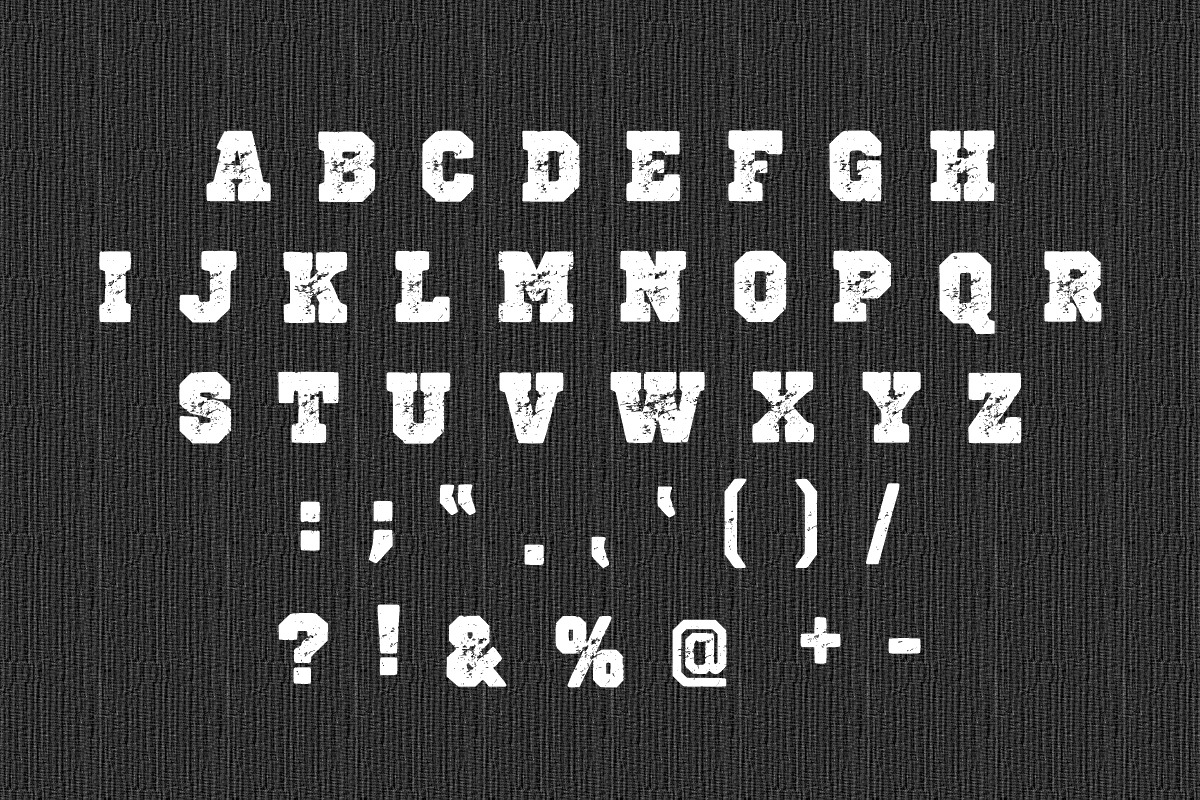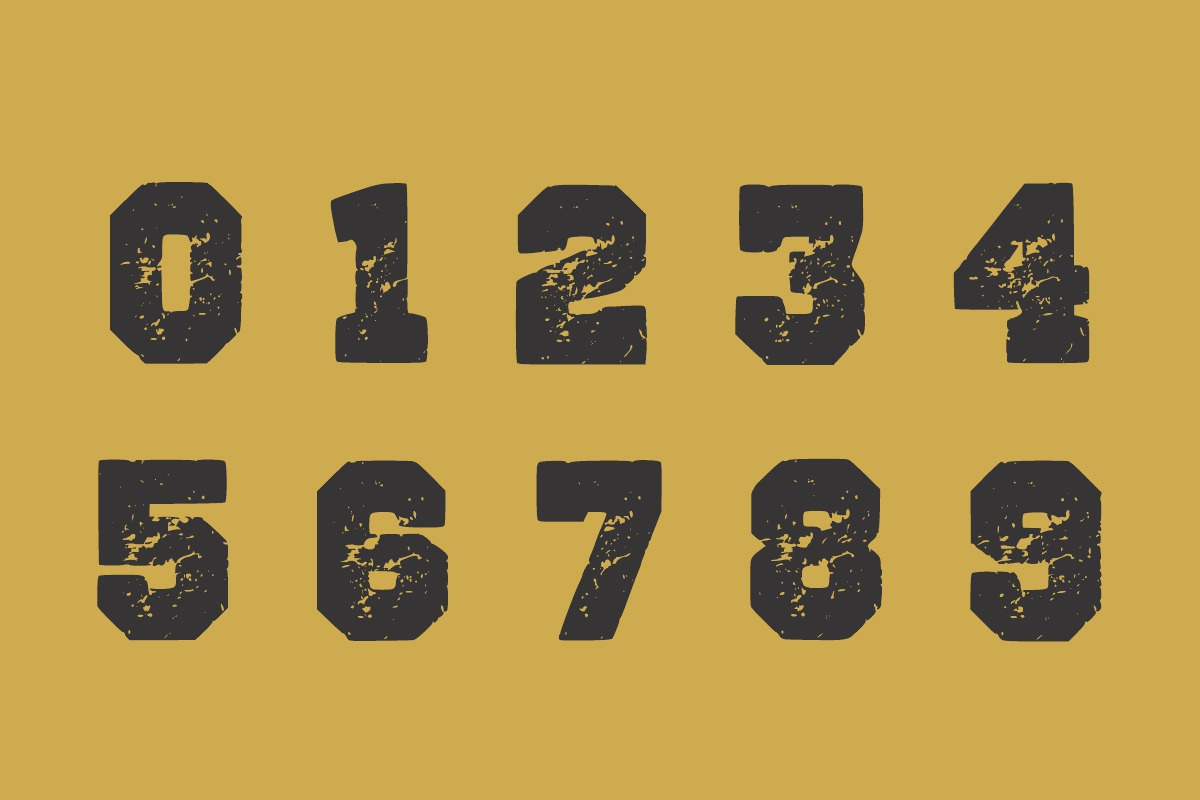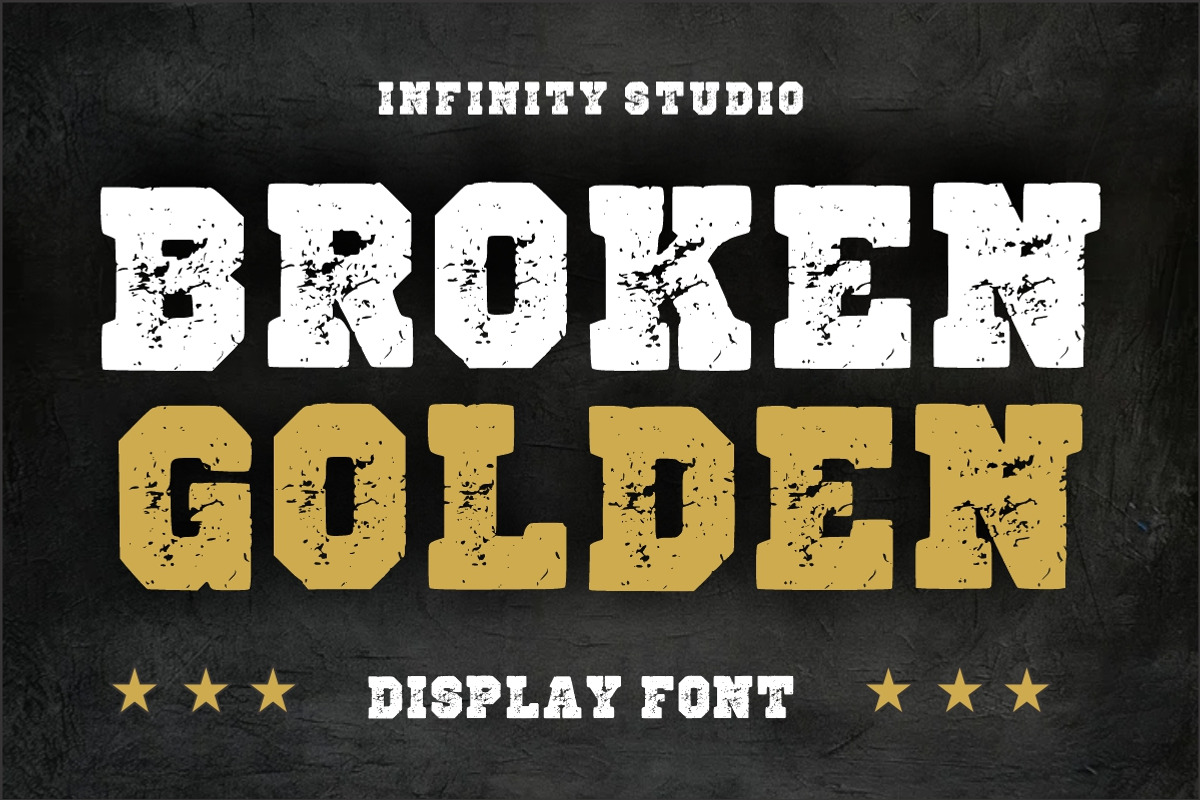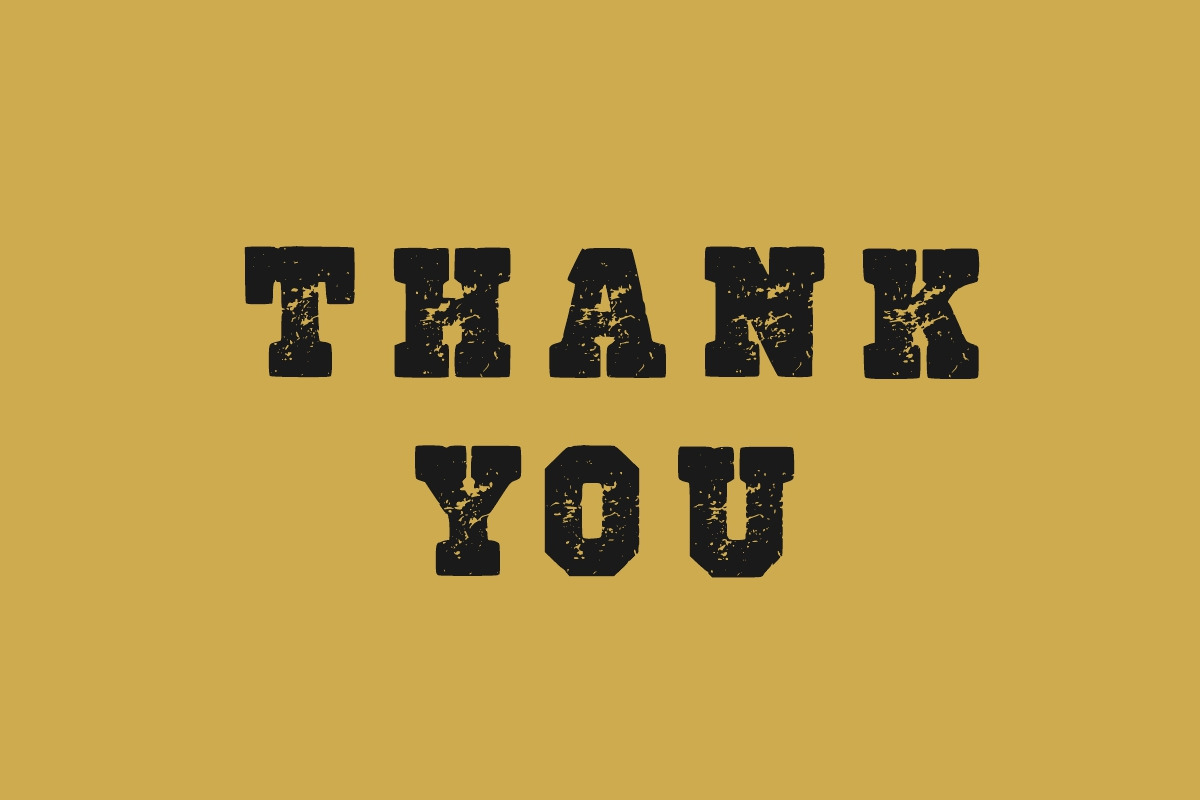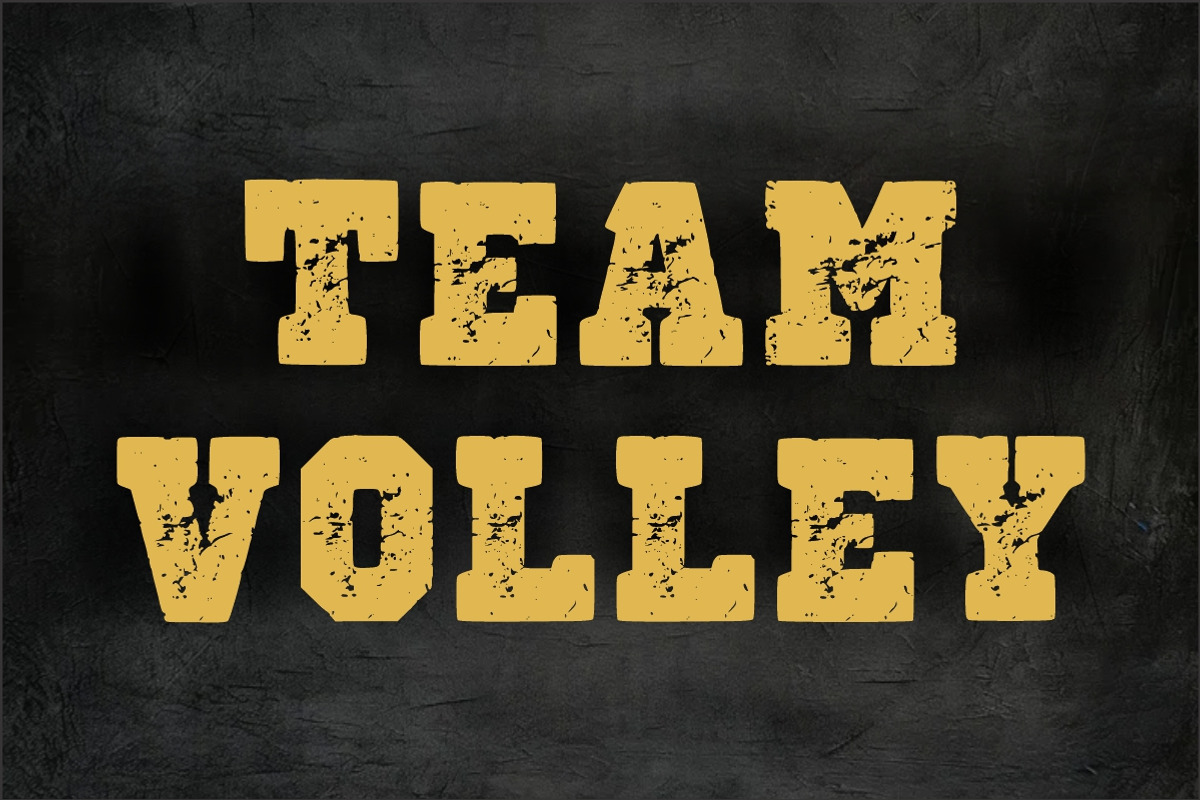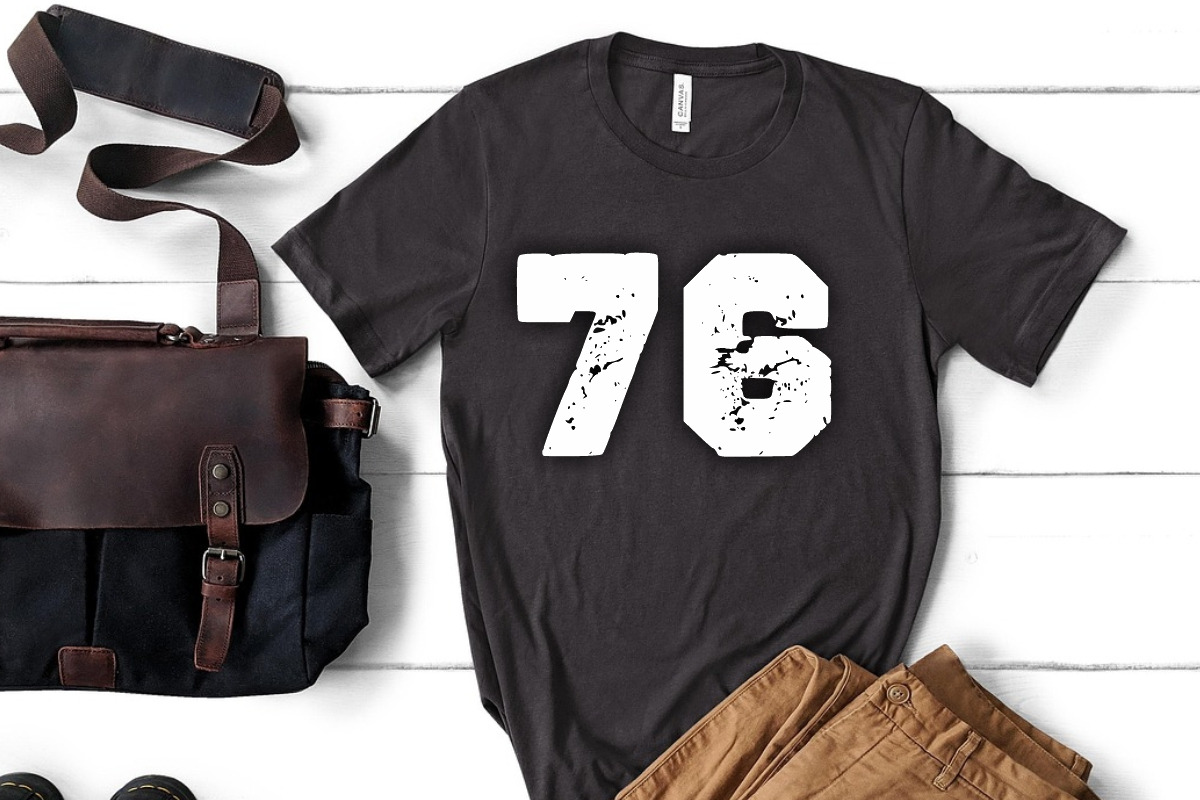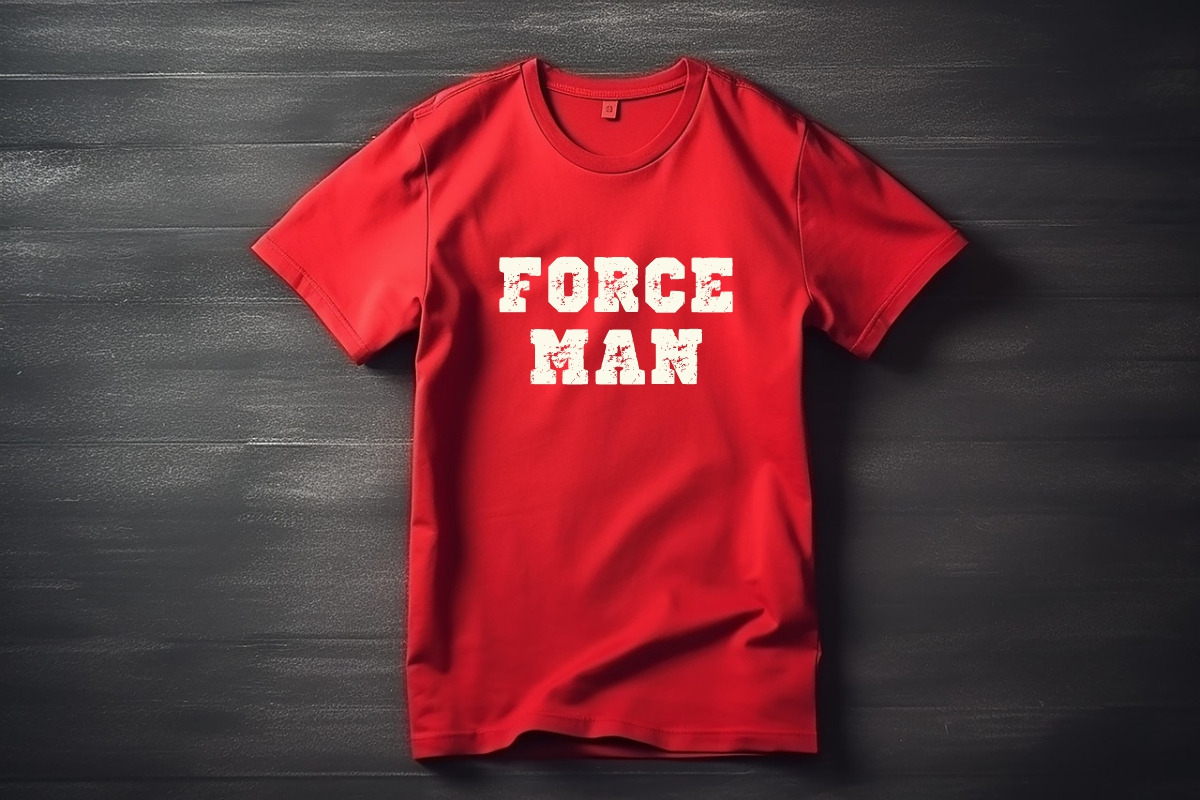
Broken Golden texture grunge font
Broken Golden is a bold and rugged varsity-style typeface with a distressed grunge texture. Its heavy block lettering draws inspiration from classic collegiate and sports typography, while the weathered detailing gives it an edgy, vintage feel. The combination of sharp outlines and rough textures creates a striking balance between strength and worn-in character.